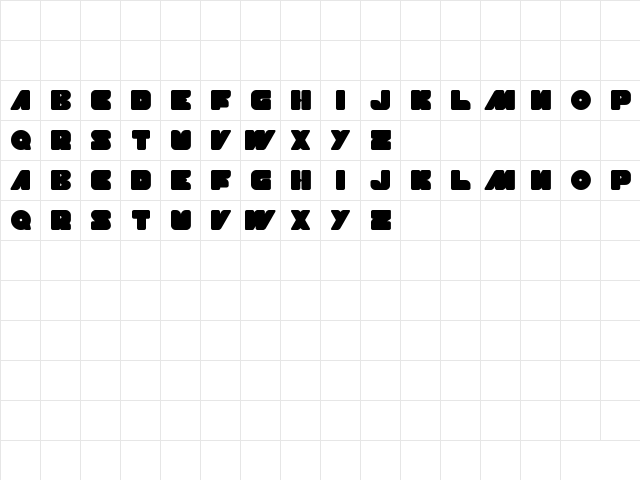
MADE IN EARTH Regular
Design Context for MADE IN EARTH Typeface
MADE IN EARTH is a composed and adaptable typeface that performs quietly and consistently across a wide range of design contexts.